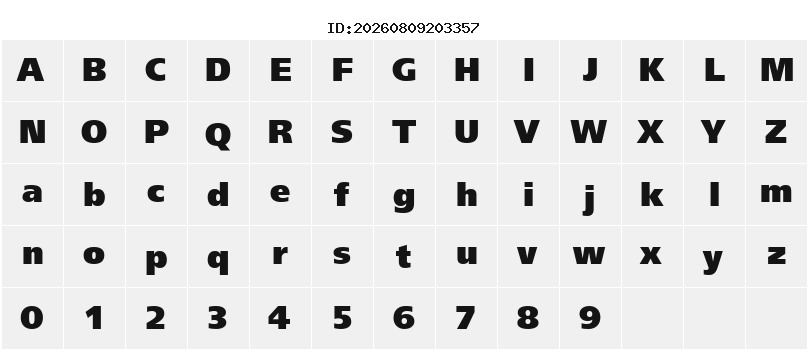
Palma Black SSi Preview
• Font Name: Palma Black SSi
• Font Style: Extra Black
• Full Font Name: Palma Black SSi Extra Black
About Palma Black SSi.ttf
Palma Black SSi.ttf is a modern, elegant sans-serif font designed for ultimate readability and visual harmony. Perfect for branding, headlines, web design, and print materials.